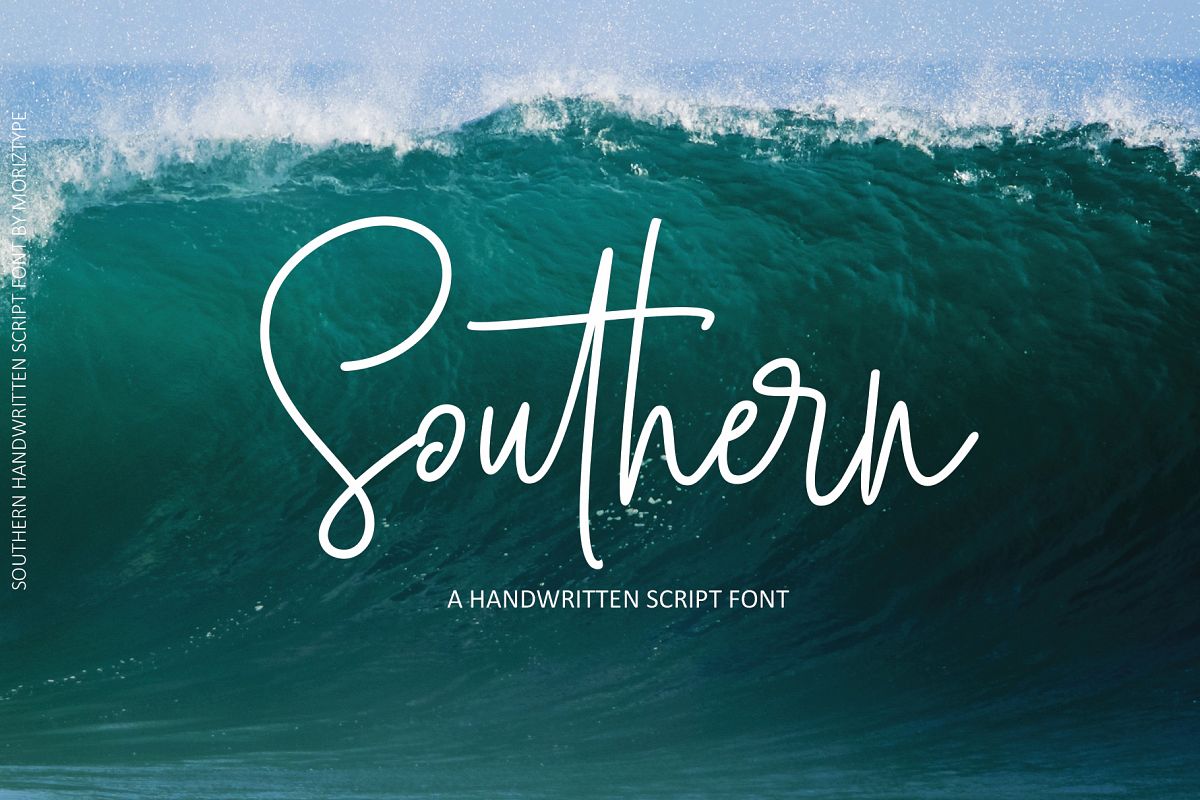
Southern Script
Introducing a new 'Southern' font - New handwriting script Add a little sparkle to your design with Southern Scrip. A clean & classy signature-style font set, perfect for creating authentic hand-lettered text quickly & easily.
With its elegant charm and extra rocking bottom line, 'Southern' has an unmistakable charm; Suitable for logo, header, company or personal branding, product packaging, card & signature.
Southern is packed full of great features to give you plenty of customisation options;Southern Includes a full set of uppercase and lowercase letters, numbers, punctuation and 158 beautiful ligatures, giving a realistic. handwriting style. equipped with a small set of small flying devices. This can be accessed only by enabling 'Stylistice Alternates' in any software with OpenType capabilities. when you activate Stylistice Alternates, then the letter style will be different, to letter beautify can activate 'Discretionary Ligatures' with 58 beautiful type.WHAT'S FEATURES INCLUDE:
• Discretionary Ligatures
• Stylistice Alternates
• Foreign languagessupport: ÀÁÂÃÄÅÆÇÈÉÊËÌÍÎÏÐÑÒÓÔÕÖØÙÚÛÜÝßàáâãäåæçèéêëìíîïðñòóôõöøùúûüýÿ